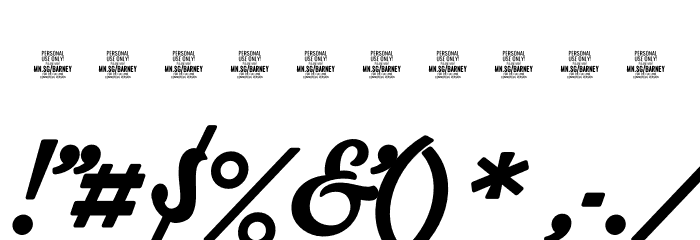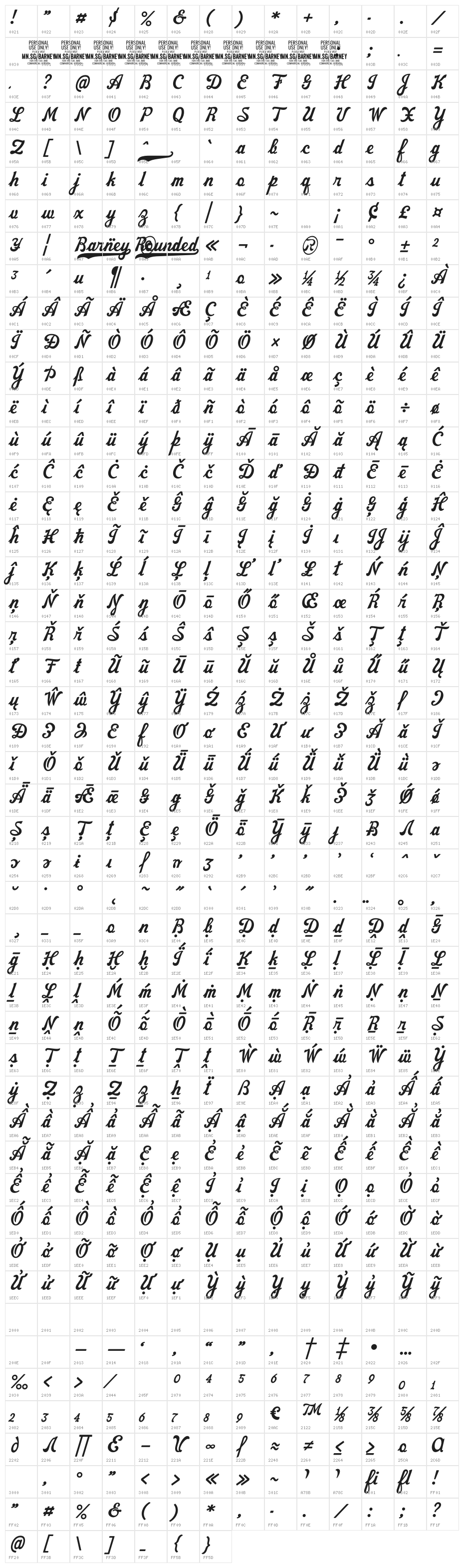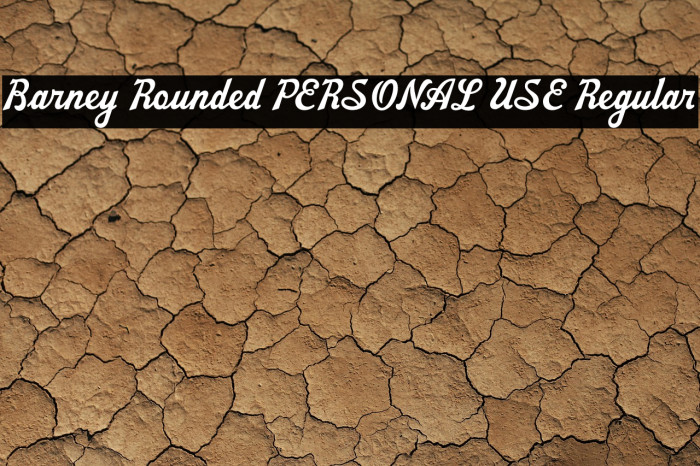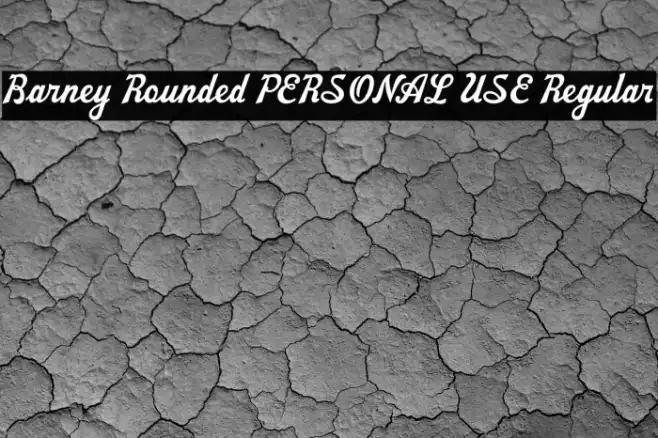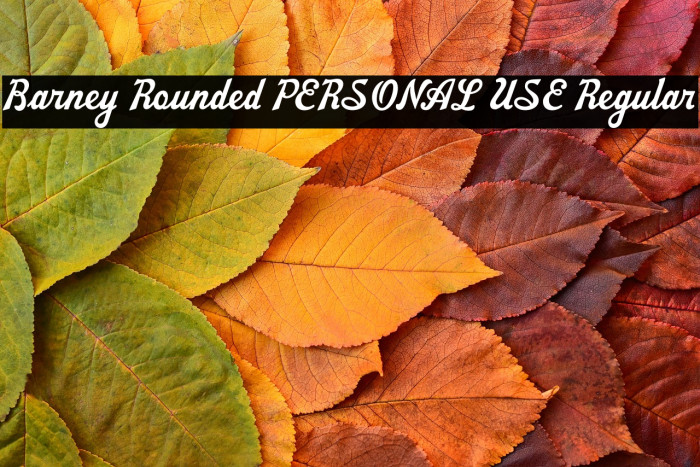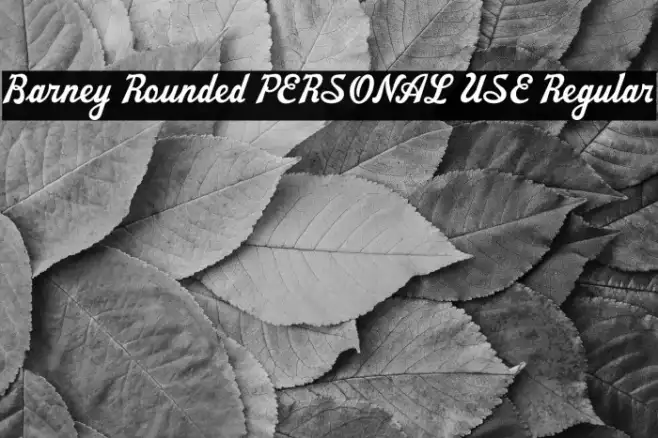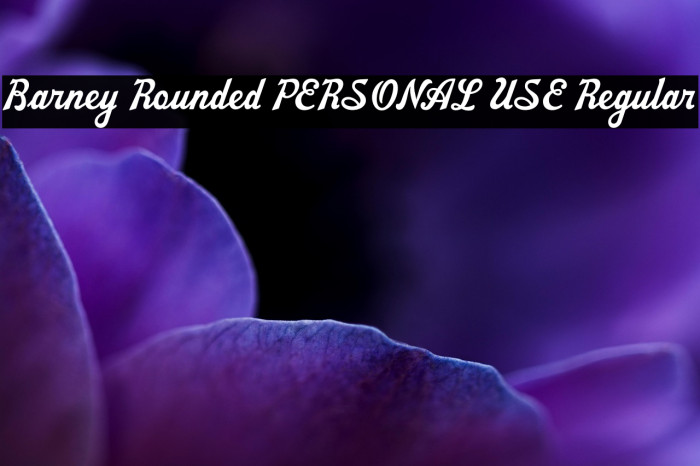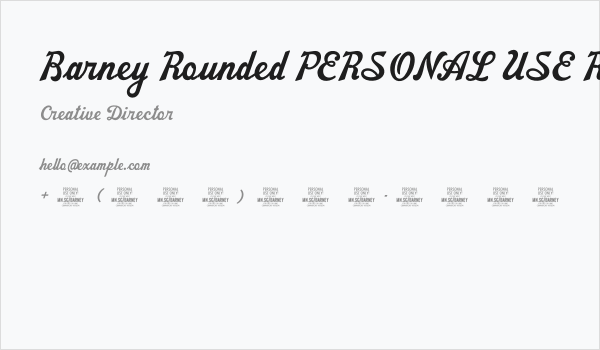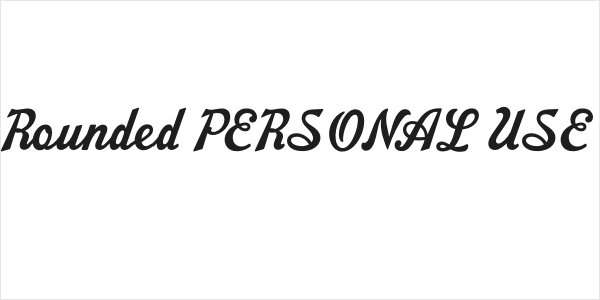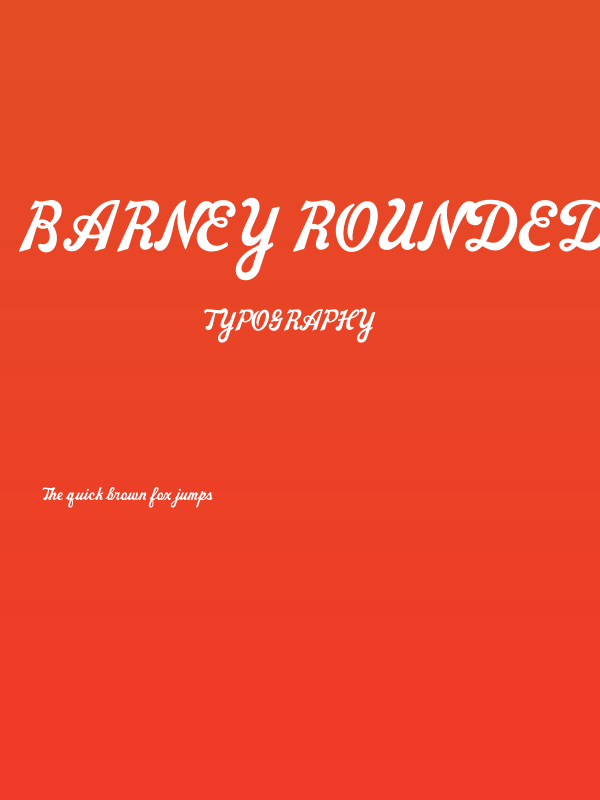
Barney Rounded PERSONAL USE Regular Font
Barney Rounded PERSONAL USE Regular Description
This font features a playful and rounded script style, characterized by its smooth curves and flowing lines. The uppercase letters exhibit a sense of elegance with their connected strokes, while the lowercase letters maintain a consistent looped design that enhances readability. The numerals and special characters are crafted to match the overall aesthetic, providing a cohesive look. The font's rounded edges give it a friendly and approachable feel, making it suitable for a variety of creative projects.
| Proposed Projects | Ideal for greeting cards, invitations, branding, and playful design projects. |